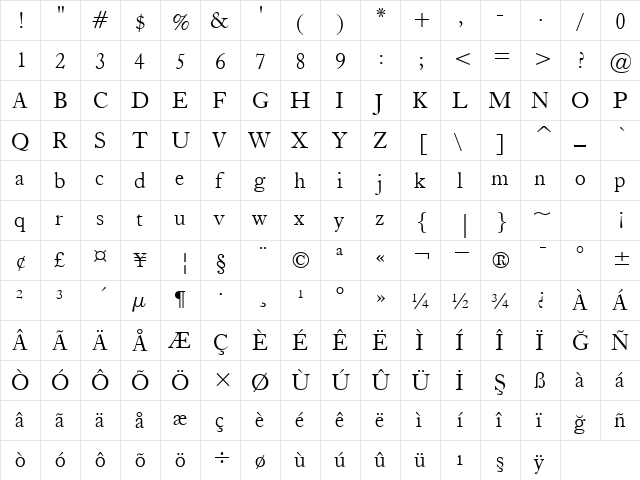
00519 Regular Font Preview
00519 Regular
00519 Regular Font Details
Design Context for 00519 Typeface
00519 offers clean, dependable letterforms without strong stylistic allegiance, making it a practical choice for designers who need flexibility.